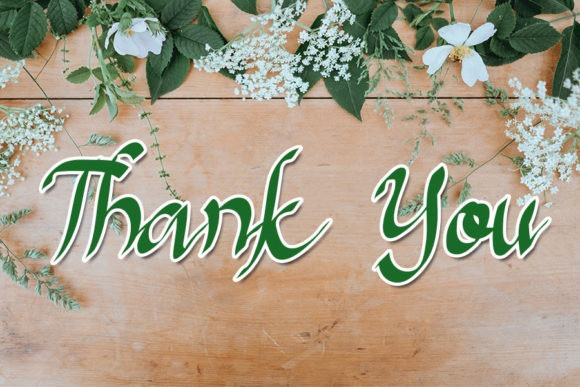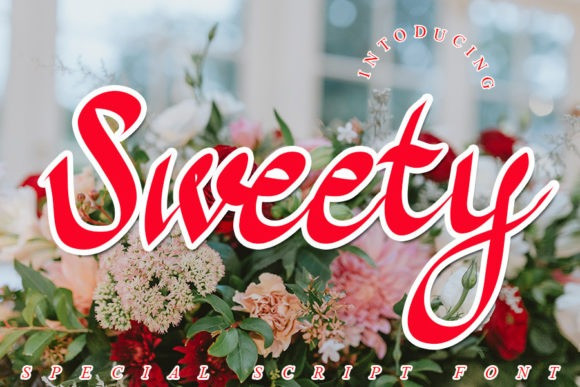
Sweety Script Font
Sweety is a sweet and cursive handwritten font. This gentle font will look gorgeous on a variety of design ideas. It will add a joyful and romantic touch to each of your projects!